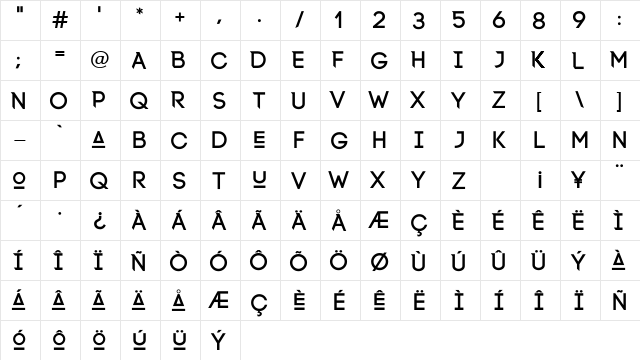
Lexlox Regular
| Foundry | Syafrizal / Khurasan |
| Designer | Syafrizal / Khurasan |
Design Context for Lexlox Typeface
Lexlox offers clean, dependable letterforms without strong stylistic allegiance, making it a practical choice for designers who need flexibility.